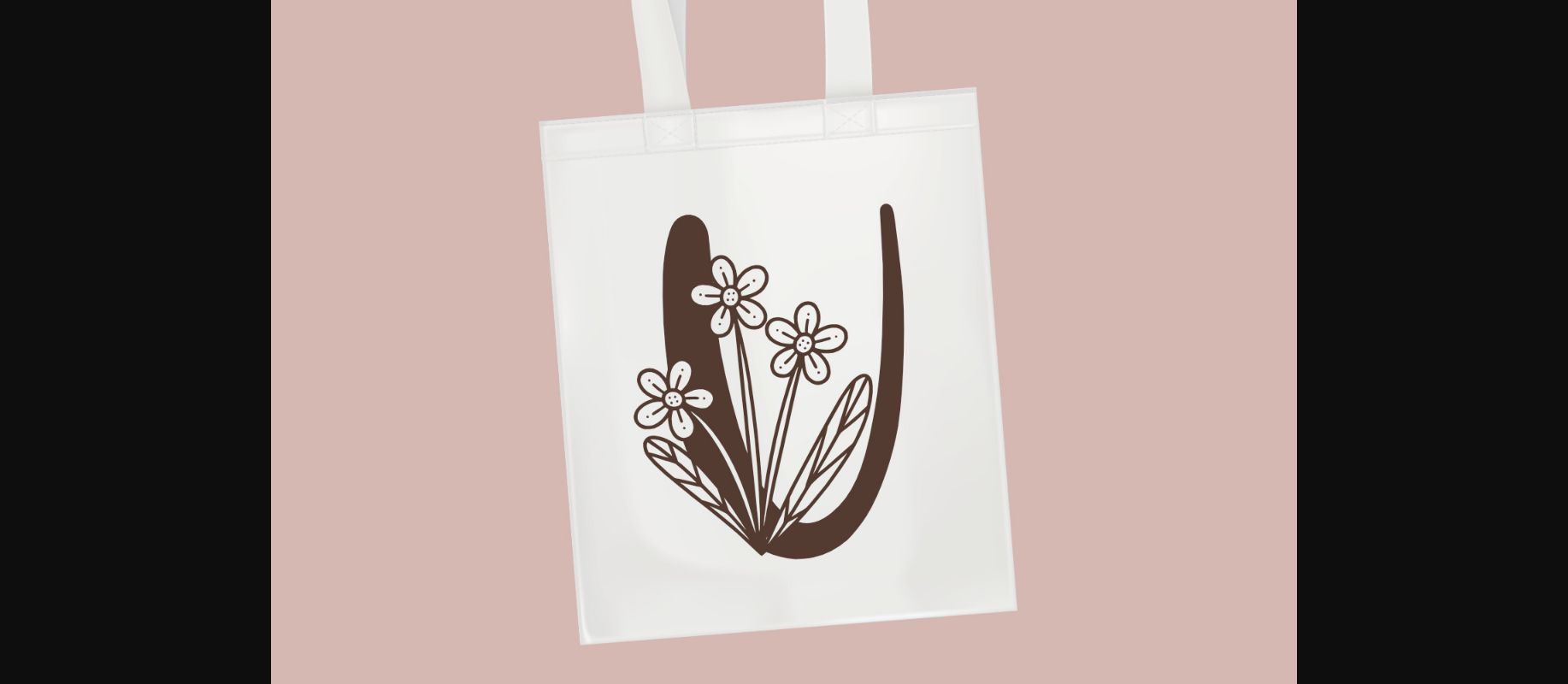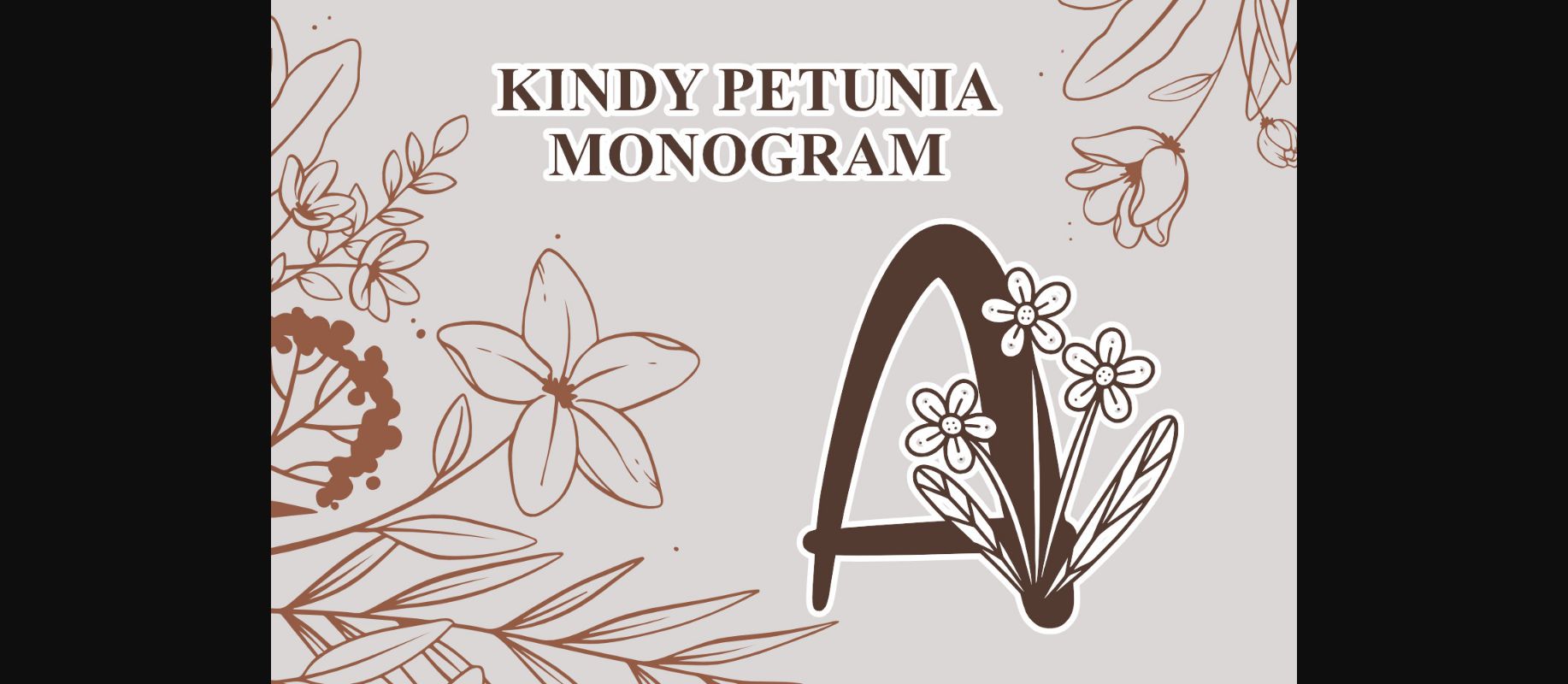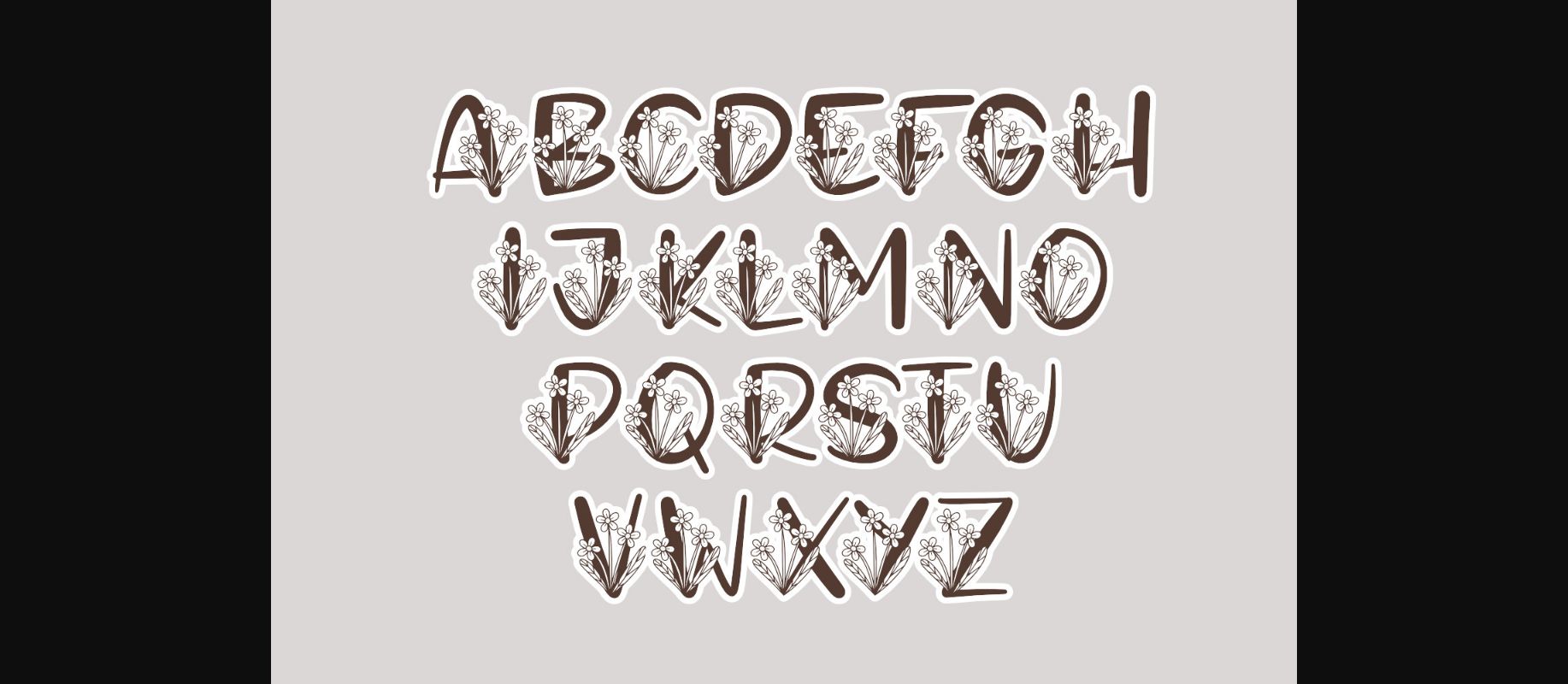
HomeDecorative FontsMonogram Kindy Petunia Font Decorative Fonts Monogram Kindy Petunia Font FacebookXPinterestWhatsApp 1 of 5 ... Monogram Kindy Petunia Font Poster 2... Monogram Kindy Petunia Font Poster 3... Monogram Kindy Petunia Font Poster 4... Monogram Kindy Petunia Font Poster 5... About Monogram Kindy Petunia Font Monogram Kindy Petunia is a beautiful decorative font. This font will add a feeling of love to any craft idea, be it wedding crafts, invitations, greeting cards, Valentines, logos, and others. DOWNLOAD NOW People also explored Chubby Font Relitha Patricia Font Santa Rose Font Spanakopita Font Theraline Font Kadeworth Palm Insting Font Singtton Vintage Font Bellada + Extras Font 295 0 TagsMonogram Kindy Petunia Font Previous articleMonogram Amberila FontNext articleMonogram Asania Flower Font LEAVE A REPLY Cancel reply Comment: Please enter your comment! Name:* Please enter your name here Email:* You have entered an incorrect email address! Please enter your email address here Website: Save my name, email, and website in this browser for the next time I comment. Personal Use Free Diland Personal Use Free Read more about this font Squariess Personal Use Free Read more about this font Yumail Personal Use Free Read more about this font Spring Personal Use Free Read more about this font BLOG Free Fonts Risk: Why Free Fonts Can Be Dangerous for Designers Free Fonts Risk: Why Free Fonts Can Be Dangerous for Designers Using free fonts is a common practice in web and graphic design. However, the... The 10 Best Handwriting Fonts to Add Personality to Your Designs To increase your work productivity, choose the most readable fonts. Transform Your Website: Elevate Your Typography with 7 Best Web Font Generators